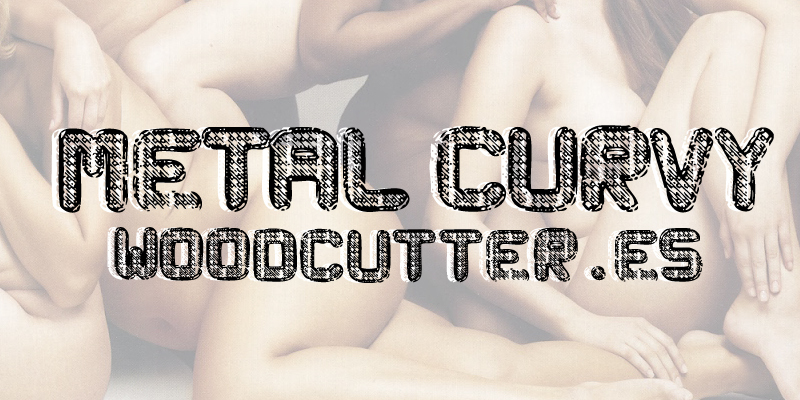
Metal Curvy
Metal Curvy is a bold, eroded font that exudes a captivating industrial aesthetic. Designed by Woodcutter Manero, this typeface features a striking blend of sharp edges and organic curves, creating a sense of rugged yet refined elegance. The distressed, metal-inspired texture adds depth and character, lending itself well to a range of design applications, from editorial layouts and packaging to signage and branding.
Metal Curvy's versatility makes it a compelling choice for designers seeking to convey a sense of strength, resilience, and edgy sophistication. Its distinctive appearance is sure to make a lasting impression in any visual context.